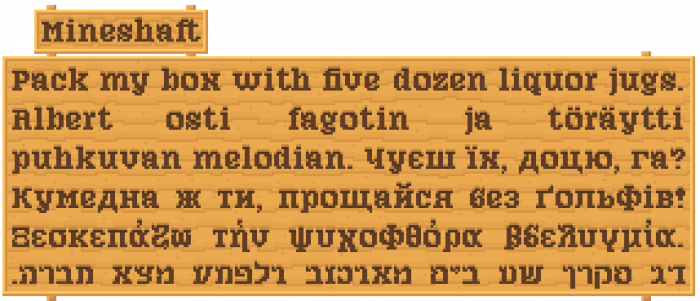
@ArrowUP - This is a really nice pixel font. Is there a particular inspiration for it?
Cool pixel font with with an archaic feeling. But I have a couple of complaints about the Cyrillic alphabet. б shouldn't be so low. л should not differ so much from д, now it resembles п. And it is not an obligatory correction - з and э can have serifs at the bottom or at the top, and the middle does not have to be thin, it can also be beautiful, like in font Academy (but it will be archaic too).
Wow, you handled my suggestions so quickly. But I did another version for l - usually it is more twisted on the left. And don't forget to make the upper case too.
Thank you for the font with so much language support. But now you've made the upper-case Л too wide, with extra space in the left side-bearing.